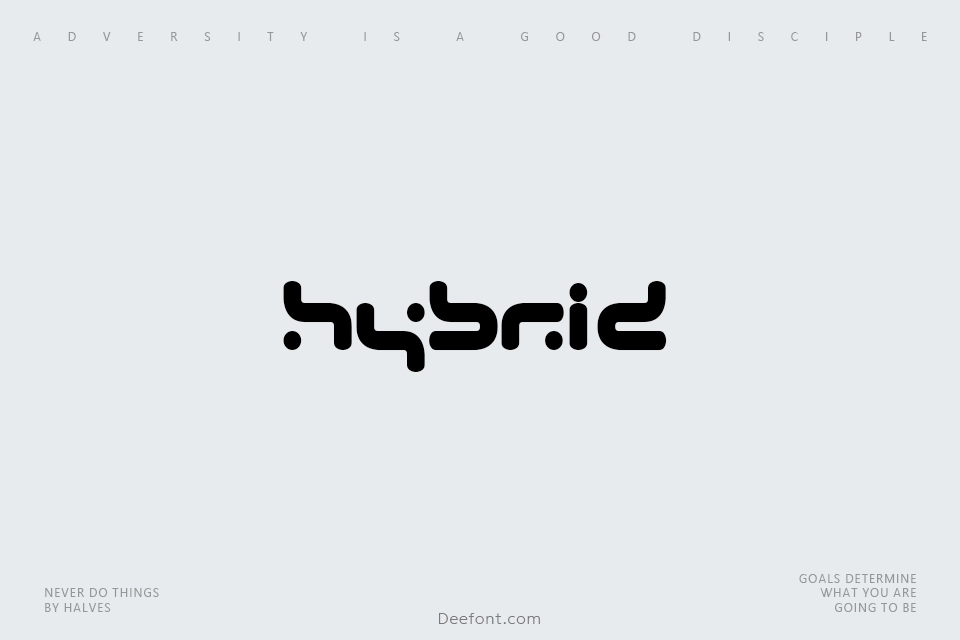
Hybrid Font
Hybrid is a futuristic, geometric sans-serif font featuring bold, rounded characters with a sleek, robotic quality. Designed for sci-fi and techno applications, this distinctive typeface combines modern minimalism with retro-futuristic aesthetics. Its chunky, rounded terminals and subtle geometric forms create a sense of both strength and fluidity, making it ideal for tech-forward designs, digital interfaces, and creative projects that demand a contemporary, technological edge.